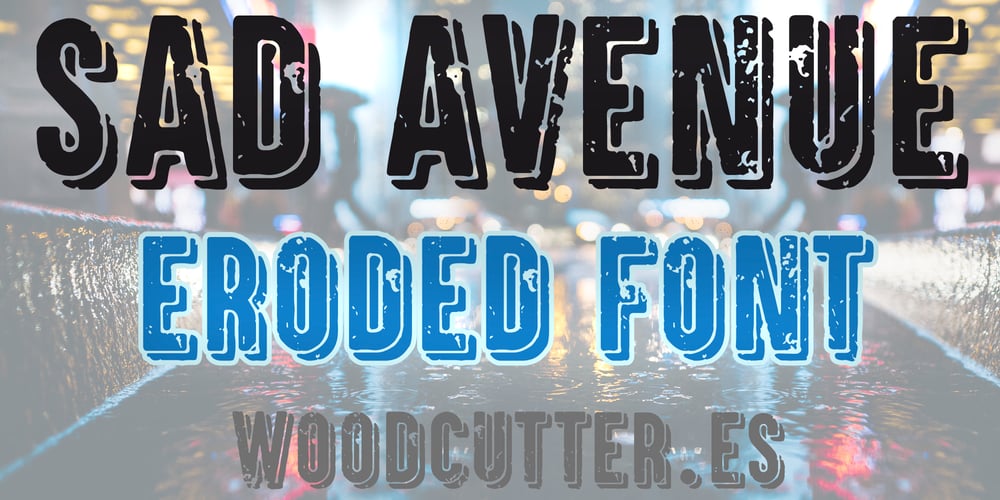
Sad Avenue
Sad Avenue font
Sad Avenue Font Family was designed by Jordi Manero and published by Woodcutter. Sad Avenue contains 1 styles and family package options. “Sad Avenue” is an uppercase font featuring distressed letters with a prominent black shadow cast to the right. This shadow effect creates a sense of depth and drama, evoking a melancholic or nostalgic atmosphere. The letters, while worn, retain a firm structure, giving the font a striking and expressive aesthetic. It’s perfect for posters, book covers, or any project aiming to convey intense emotions or a vintage, moody feel.